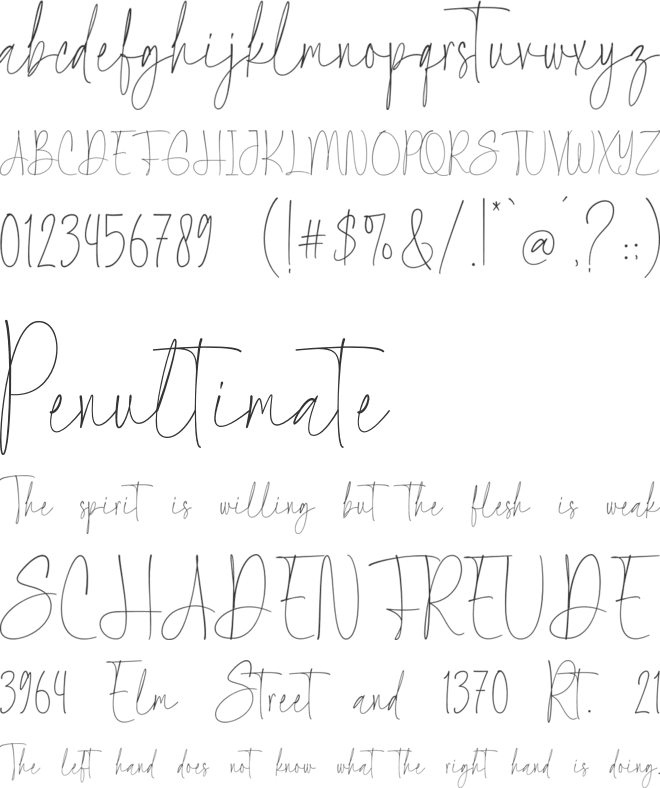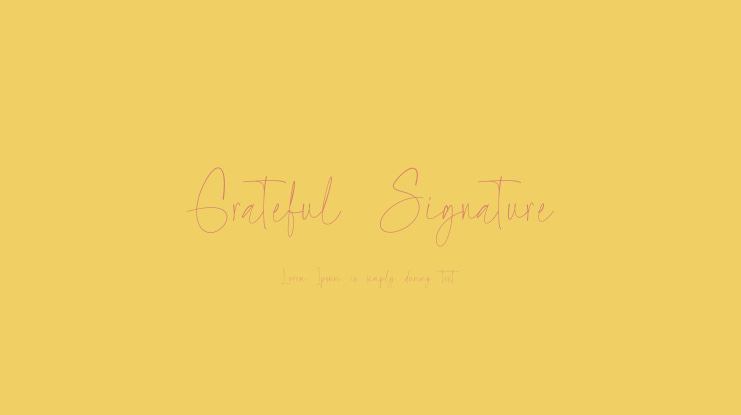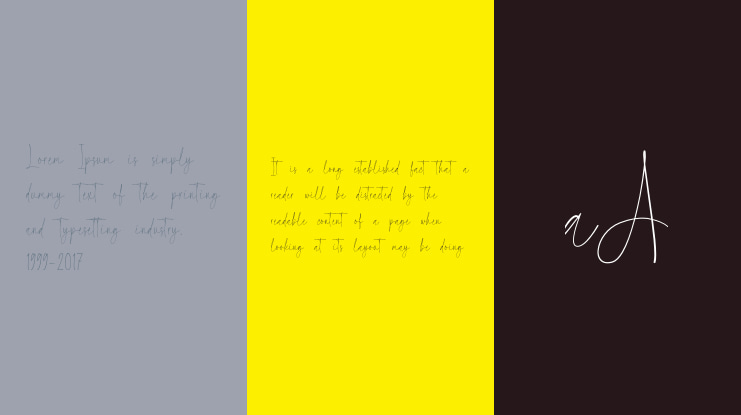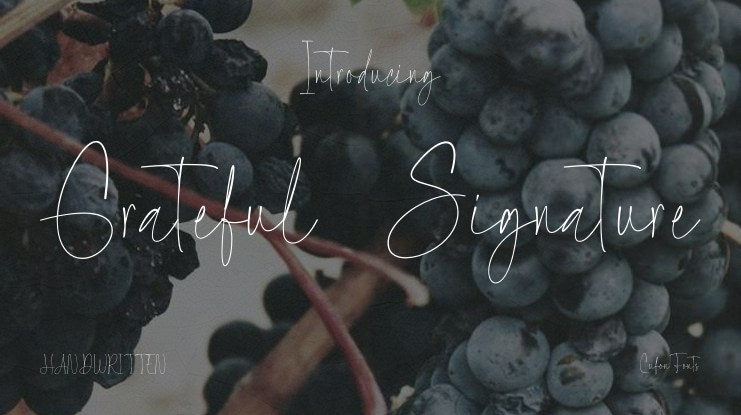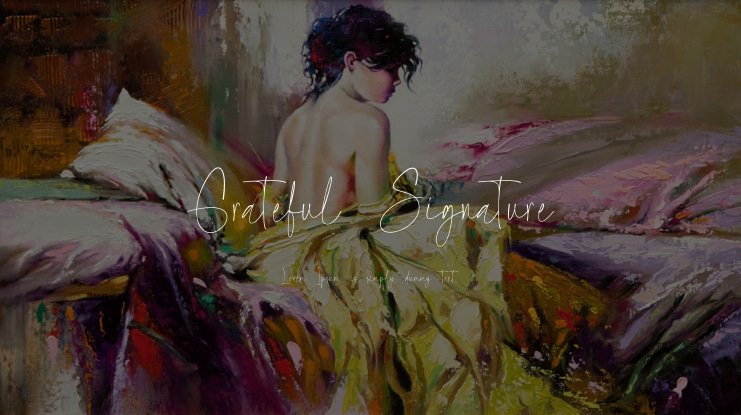
Grateful Signature Font
Grateful Signature is a stunning and elegant script font that embodies the beauty and grace of handwritten signatures. Its flowing, delicate strokes create a sophisticated and personal touch, making it perfect for branding, invitations, logos, and any design that seeks to evoke a sense of charm and refinement.